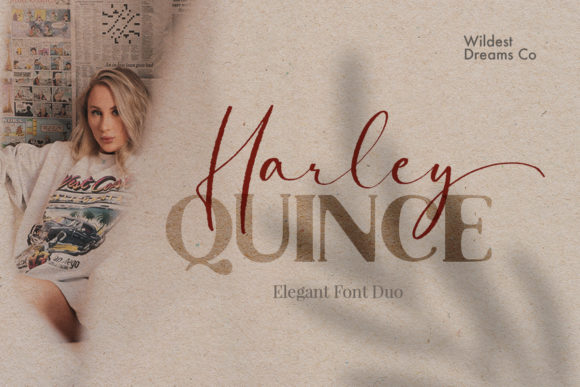
Unleash the beauty of Harley Quince, a captivating script font that dances across your designs with timeless elegance and a touch of rustic charm. Step into a world of enchanting designs, where words become art and emotions ignite at first sight.
With its graceful curves and sweeping strokes, Harley Quince is a symphony of sophistication, perfectly capturing the essence of love, joy, and eternal moments. Dive into a world of boundless creativity, where each letter dances with heartfelt expression, leaving an indelible mark on hearts and minds.
This modern and elegant duo font (script and serif) is the perfect complement to your creative arsenal, seamlessly blending classic and rustic elements to elevate your designs beyond imagination. Whether you're crafting enchanting wedding invitations, heartfelt love letters, or simply adding a touch of elegance to your everyday projects, Harley Quince will take your vision to new heights.
Immerse yourself in the charm of Harley Quince as it transforms ordinary words into expressions of art. With its timeless beauty and universal appeal, this font is sure to captivate hearts and leave a lasting impression, ensuring your designs stand out from the crowd.
So, embrace the allure of Harley Quince and embark on a creative journey where emotions find their perfect voice. Let the letters flow with grace and elegance, weaving a tapestry of heartfelt stories and enchanting moments that will forever be cherished.